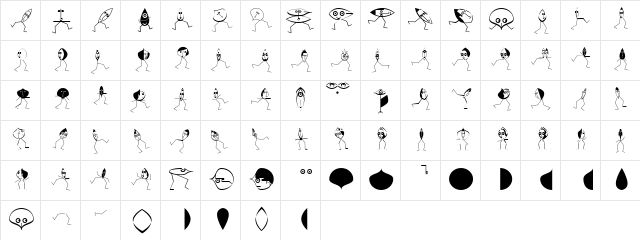
HeadsConstructedTwo Regular
Design Context for HeadsConstructedTwo Typeface
HeadsConstructedTwo is a composed and adaptable typeface that performs quietly and consistently across a wide range of design contexts.